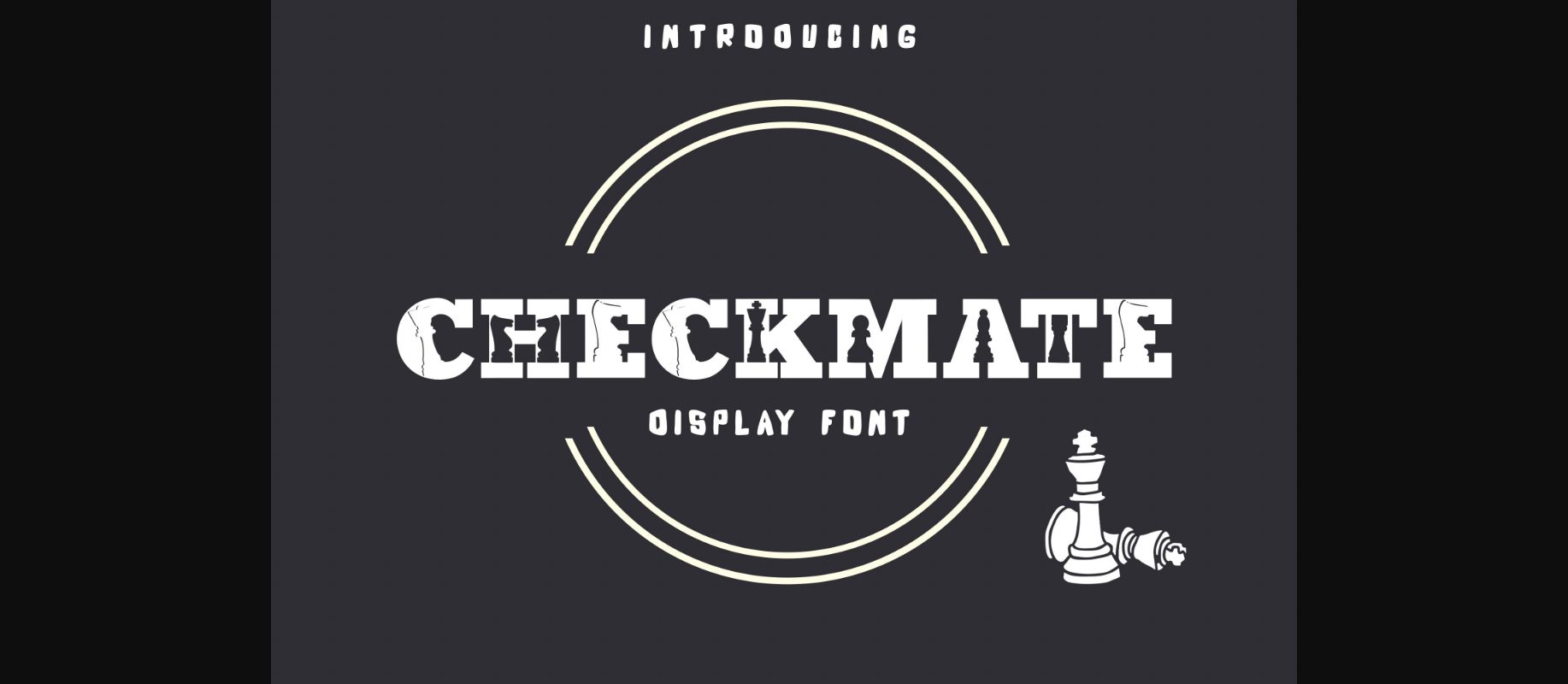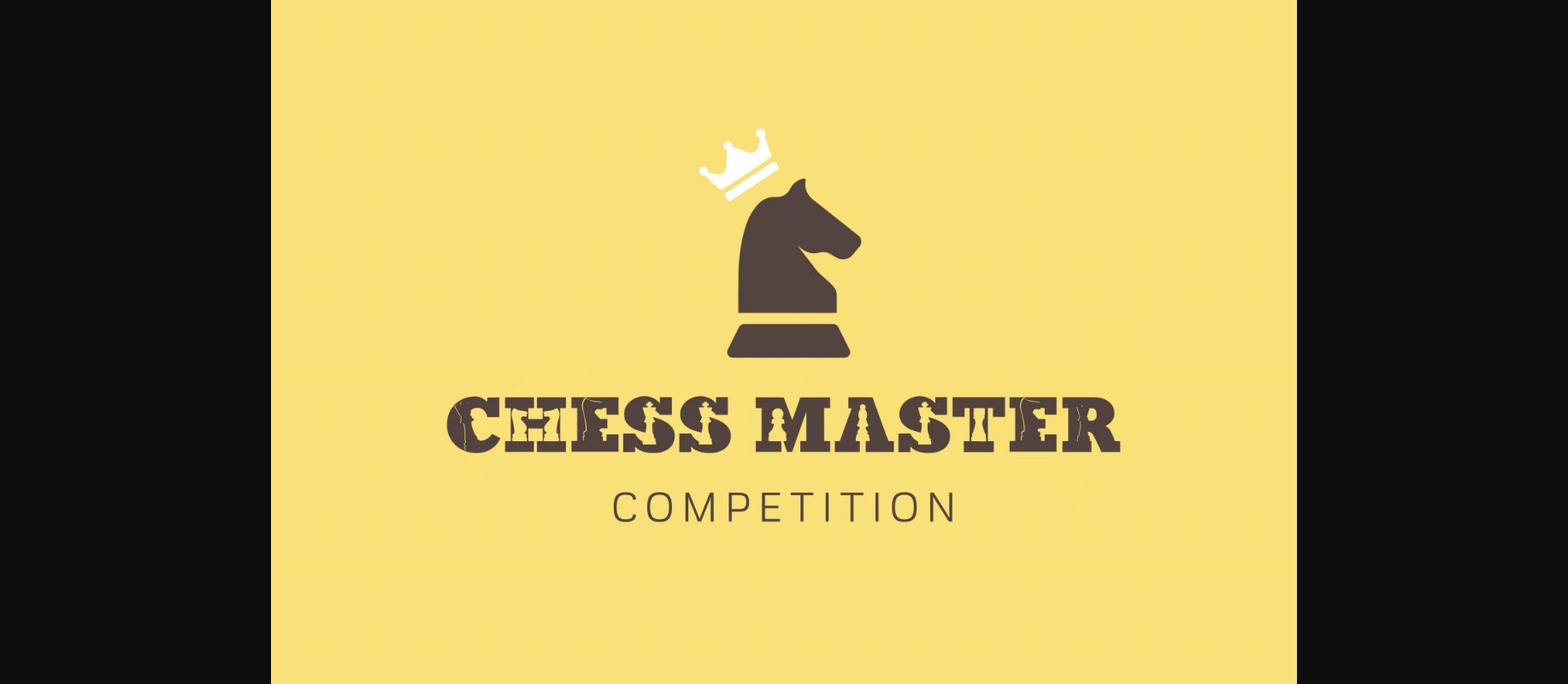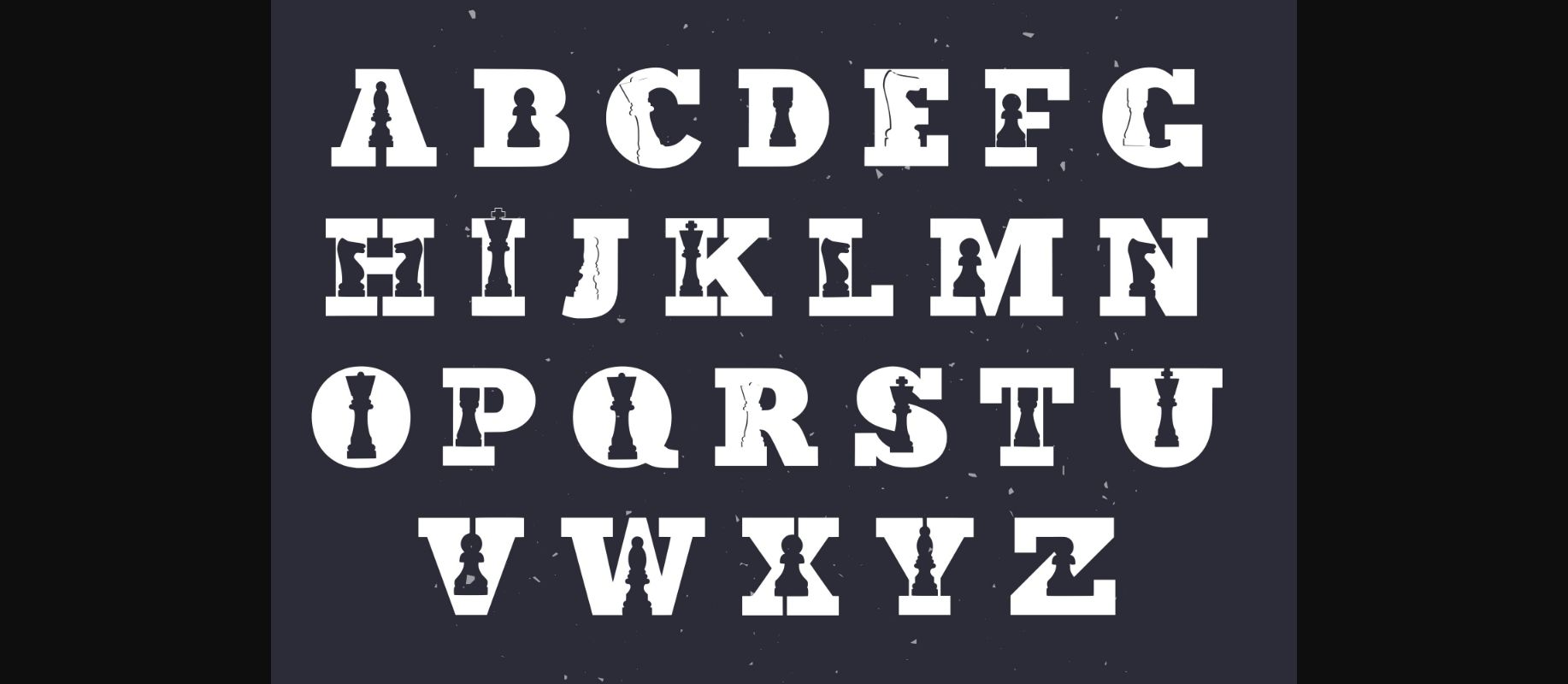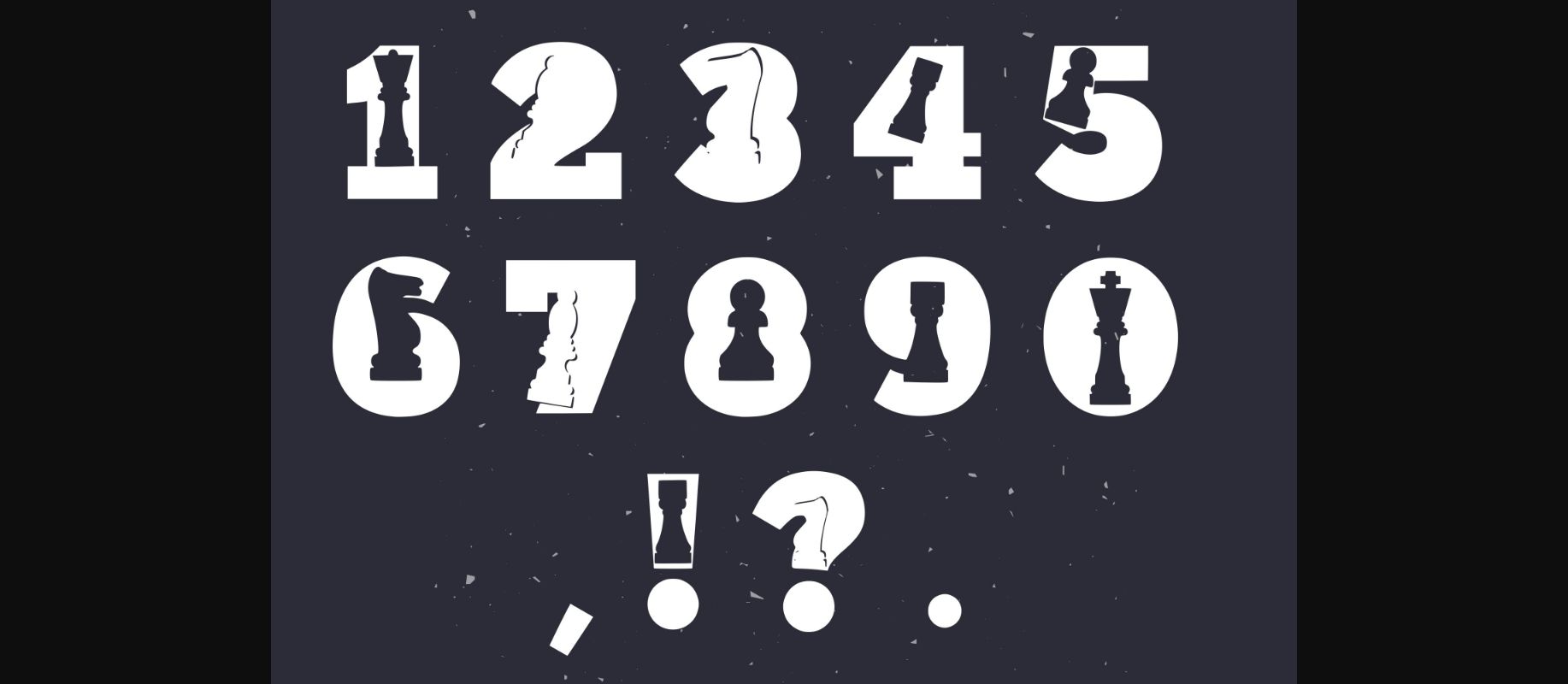
Checkmate Font
About Checkmate Font
Checkmate is a chess-themed decorative font. It is perfect for posters, stickers, or t-shirt designs. If you have projects about chess, don’t forget to put the checkmate font in your artwork, it will make your work outstanding!